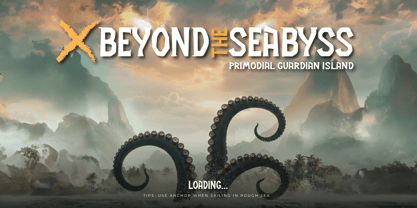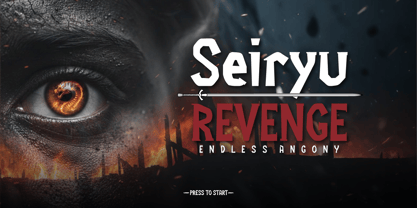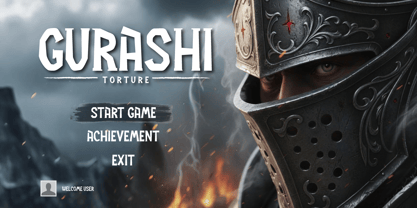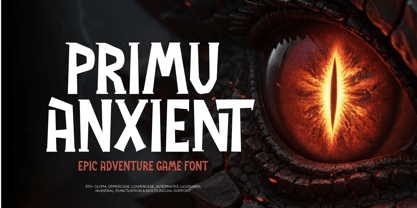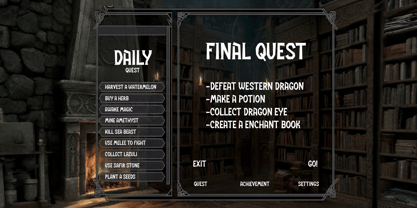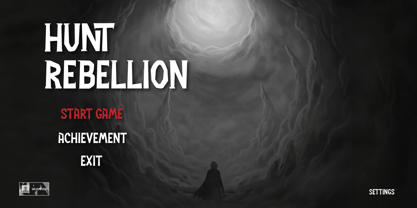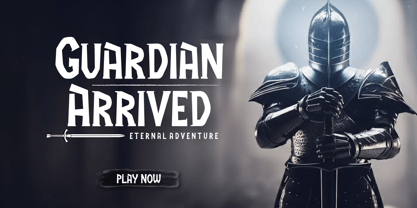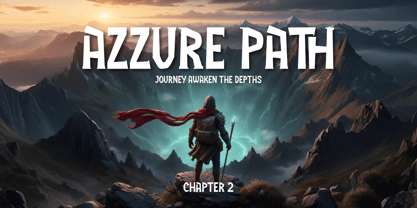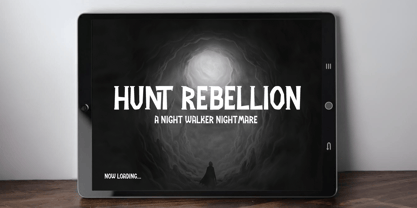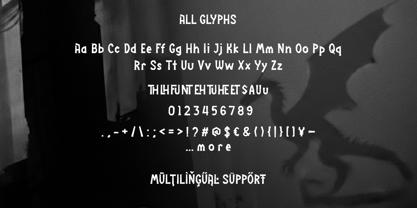
Primu Anxient is an epic adventure display font inspired by ancient fantasy worlds, legendary monsters, and heroic tales. Its bold and dramatic letterforms are crafted to create powerful titles that instantly stand out in games, posters, and fantasy visuals.
This font is ideal for adventure games, RPG titles, action fantasy posters, movie covers, and strong headlines that require a heroic and legendary atmosphere. Every character delivers a sense of battle, magic, and epic storytelling.
Featuring uppercase and lowercase letters, numerals, punctuation, ligatures, and multilingual support, Primu Anxient offers flexibility for professional designers who need a strong, cinematic, and immersive font style.
- All glyphs and Feature
- Multilingual Support: Fully supports 85+ languages, including:
Afrikaans, Albanian, Asu, Basque, Bemba, Bena, Breton, Catalan, Chiga, Cornish, Croatian, Czech, Danish, Dutch, Embu, English, Esperanto, Estonian, Filipino, Finnish, French, Friulian, Galician, Gusii, Hungarian, Indonesian, Irish, Italian, Kabuverdianu, Kalenjin, Kamba, Kikuyu, Kinyarwanda, Latvian, Lithuanian, Lower Sorbian, Luo, Luxembourgish, Luyia, Machame, Makhuwa-Meetto, Makonde, Malagasy, Maltese, Manx, Meru, Morisyen, North Ndebele, Norwegian Bokmål, Norwegian Nynorsk, Nyankole, Oromo, Polish, Portuguese, Quechua, Romanian, Romansh, Rombo, Rundi, Rwa, Samburu, Sango, Sangu, Scottish Gaelic, Sena, Serbian, Shambala, Shona, Slovak, Slovenian, Soga, Somali, Spanish, Swahili, Swedish, Swiss German, Taita, Teso, Turkish, Upper Sorbian, Uzbek (Latin), Volapük, Vunjo, Walser, Zulu.